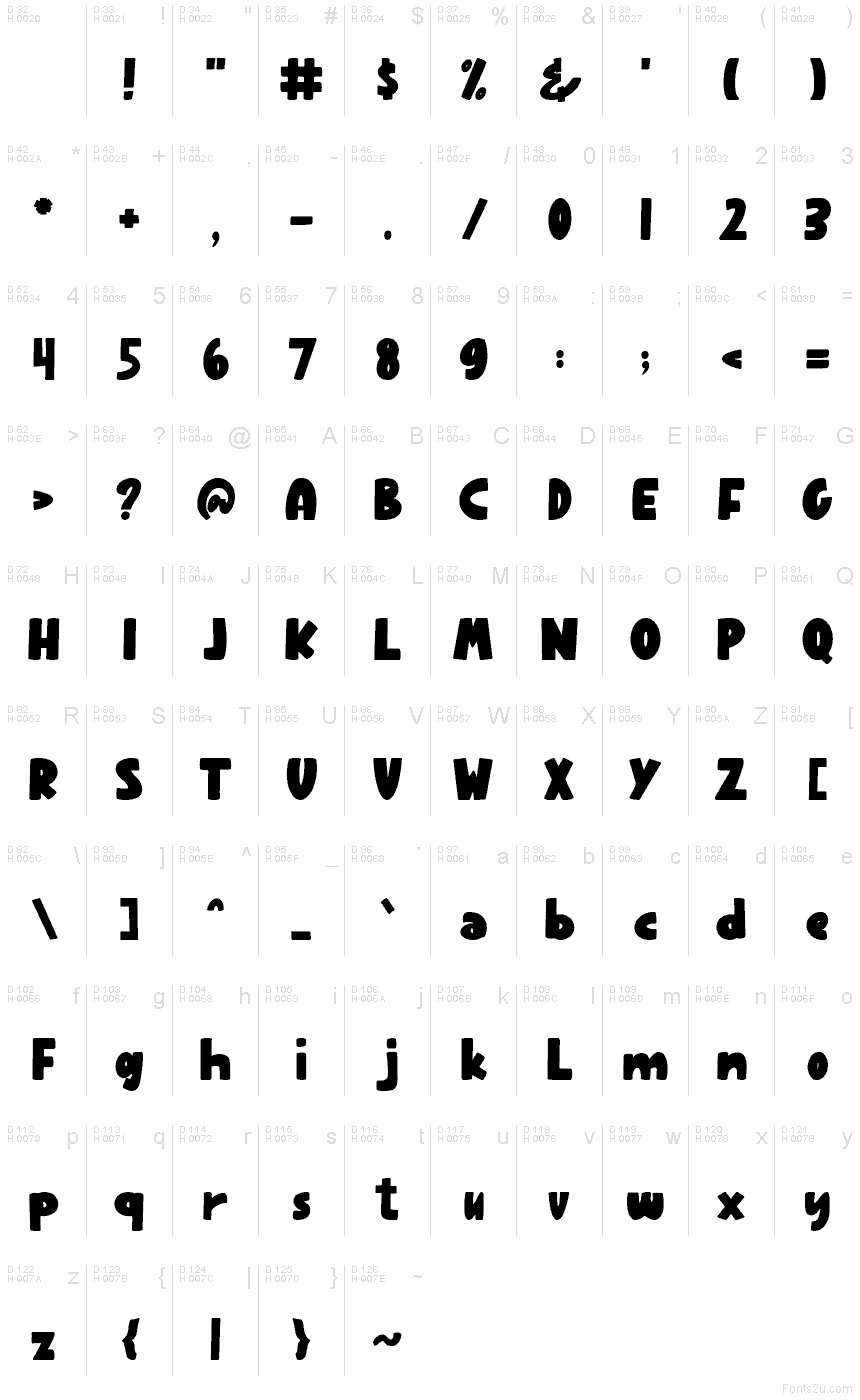
Maizar Sezar Regular
Maizar Sezar font is a free cartoon display font by Wildan Type with bold rounded letters and a whimsical style. Despite its retro-inspired appearance, this typeface feels modern and original which makes for perfect design material.
Use it for movie titles, on book covers, in magazine headlines, embroidered on clothing items and products or within popular digital designs likes social media posts.